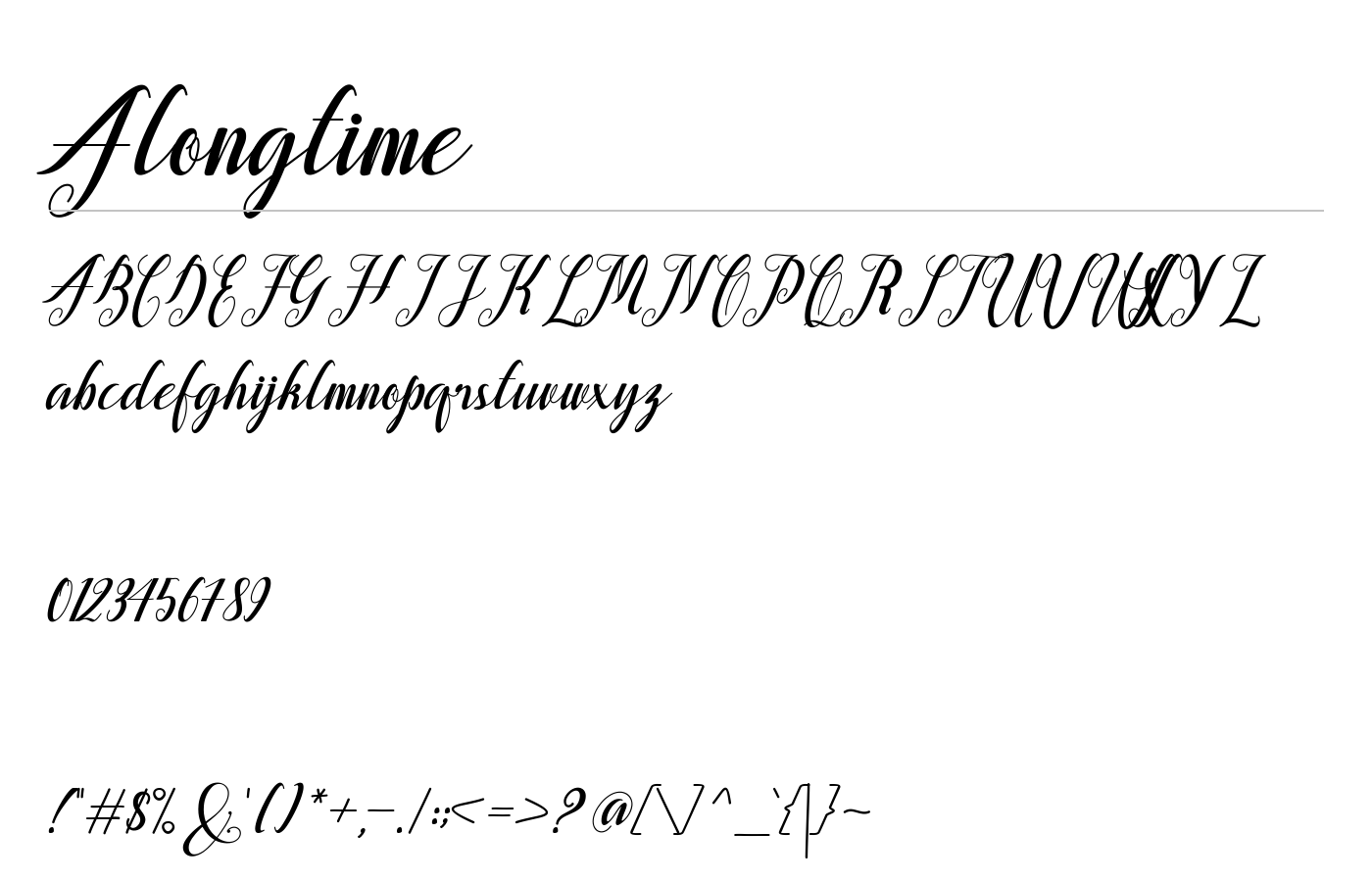
Alongtime is an elegant, script font with flowing, calligraphic strokes that exude sophistication and grace. Its slender, slightly slanted letterforms with refined contrast make it perfect for luxury branding, invitations, and stylish editorial projects where a touch of classic charm and refinement is desired.
Alongtime Font
About Alongtime Font